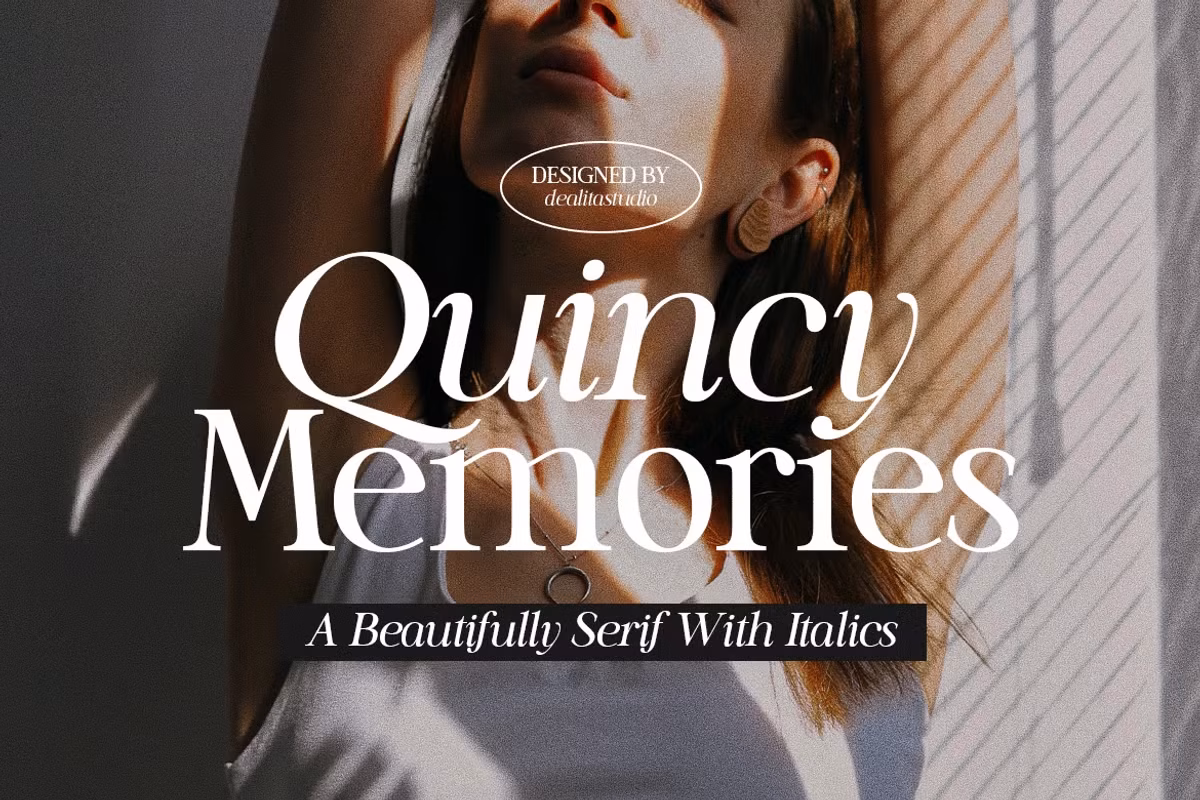
You must purchase this font for commercial use. However, you can download Quincy Serif Font Free Download for testing purposes. Quincy is a classic serif font with a warm, welcoming style that blends traditional elegance with modern readability. Perfect for editorial layouts, book covers, branding, packaging, and professional websites, Quincy offers a timeless look with a refined, approachable character.
Its softly rounded serifs, balanced proportions, and clean structure make it versatile for both display and body text. Whether you're creating a sophisticated brand identity or designing an elegant magazine spread, Quincy Serif Font Free Download gives you the flexibility to test its look and feel before committing to commercial use.
Use Quincy to bring a sense of heritage, charm, and professionalism to your next project. Don’t forget to purchase the proper license for business or client-related work. Download Quincy Serif Font Free Download today and elevate your typography with classic beauty and contemporary clarity.